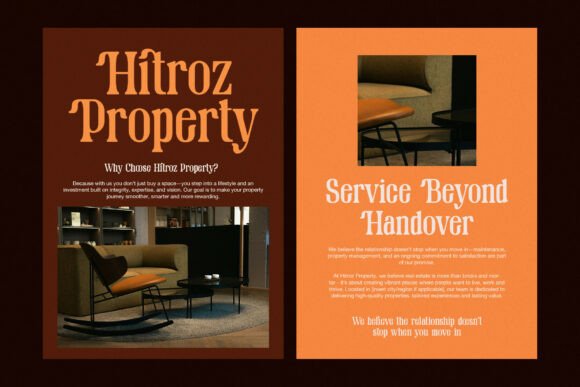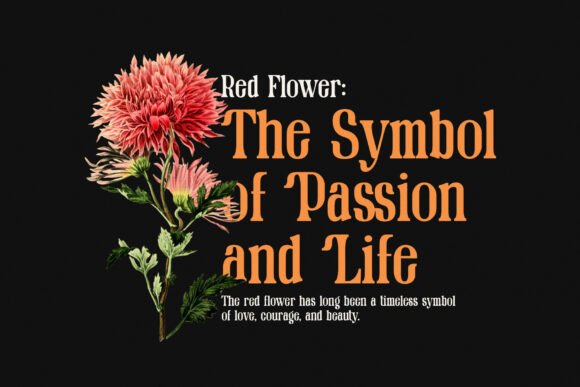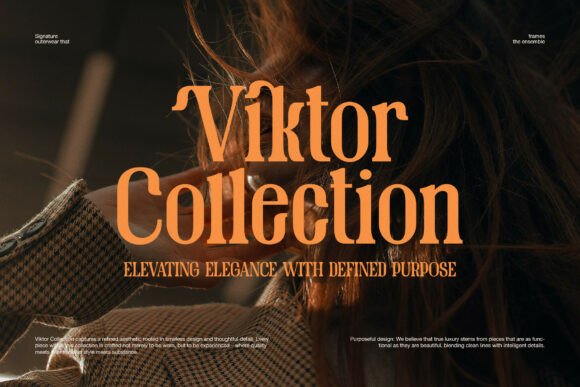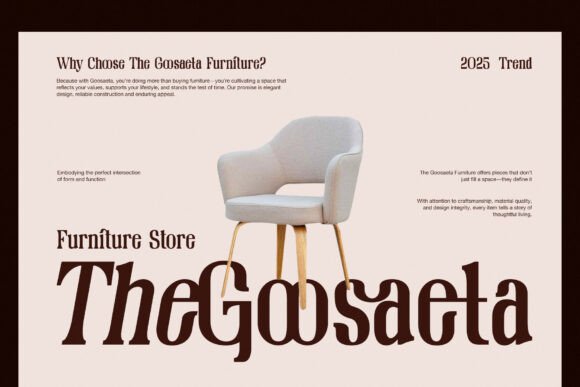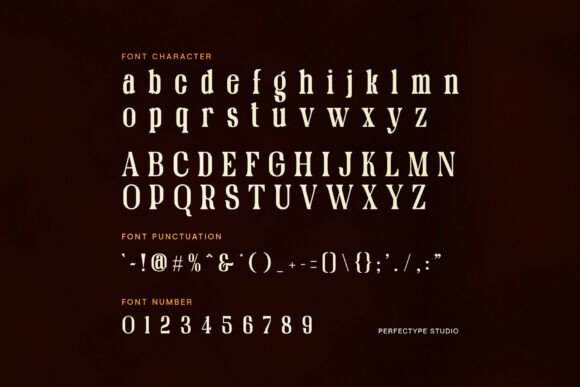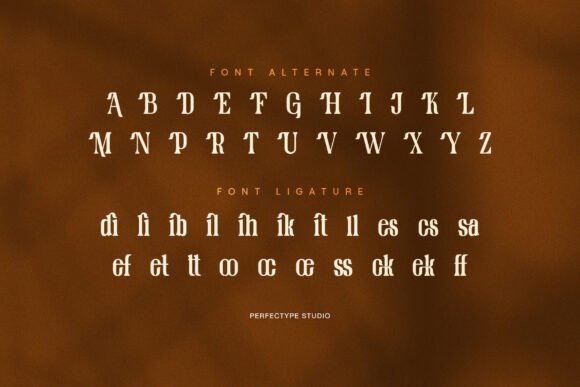
Introduction to Qlimes Font Font
Fonts play a crucial role in design, and the Qlimes Font font is a typeface that brings both character and versatility to any project. Whether you’re working on a branding project, a website, or a print design, the Qlimes Font font offers a unique style that can elevate your work.
Qlimes is a modern retro serif font that blends vintage character with a bold, elegant presence.
Designed for creators who value both nostalgia and refinement, Qlimes delivers a fresh interpretation of classic serif typography Its soft curves and high-contrast strokes bring warmth and sophistication to every design.
Key Features of Qlimes Font Font
Why Choose Qlimes Font Font?
The Qlimes Font font is more than just a typeface – it’s a design tool that helps you communicate your message with style and clarity. Its unique character set and versatile design make it suitable for a wide range of applications, from elegant invitations to bold headlines.
With its carefully crafted letterforms and balanced proportions, the Qlimes Font font ensures readability and visual appeal across all mediums.
What makes Qlimes Font font special?
The Qlimes Font font stands out with its unique design, exceptional readability, and versatility across various design applications.